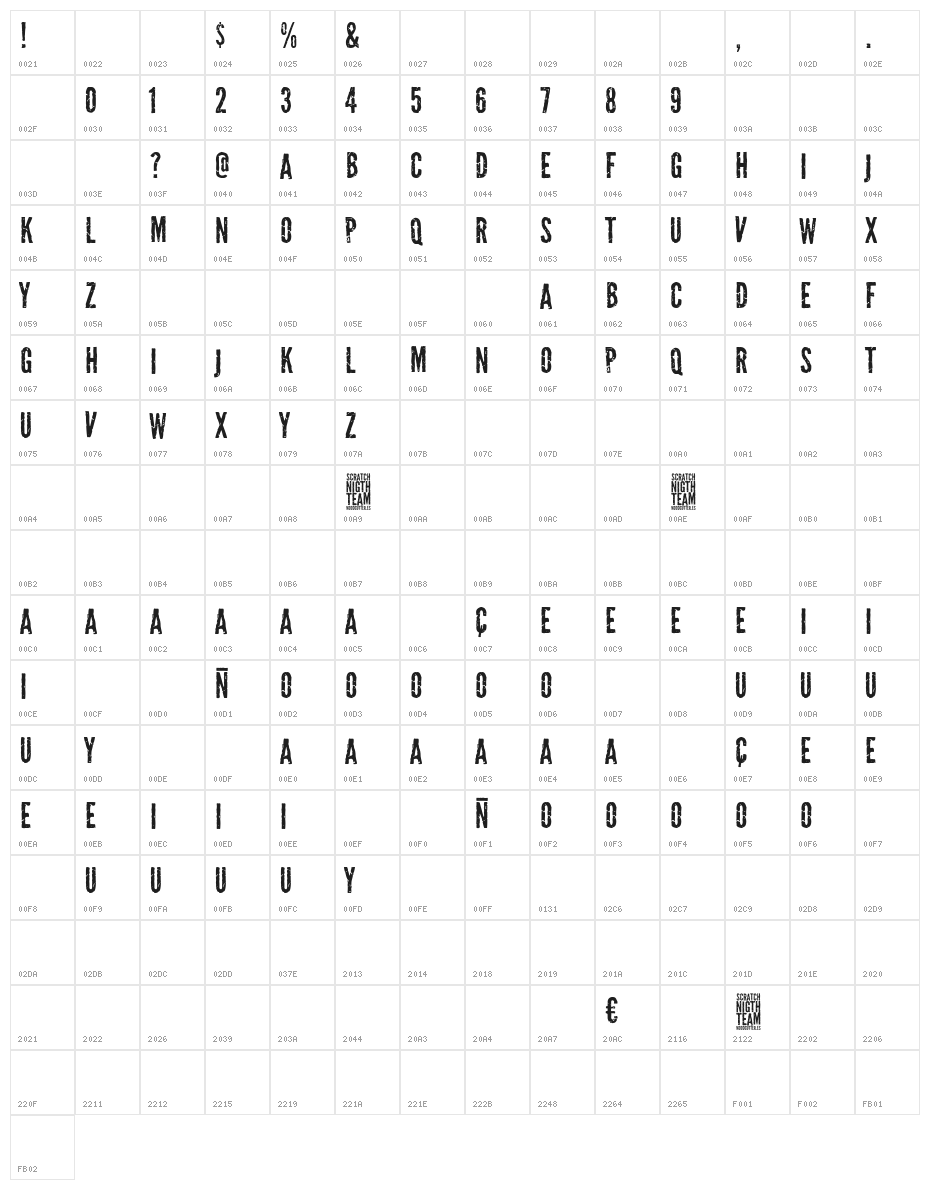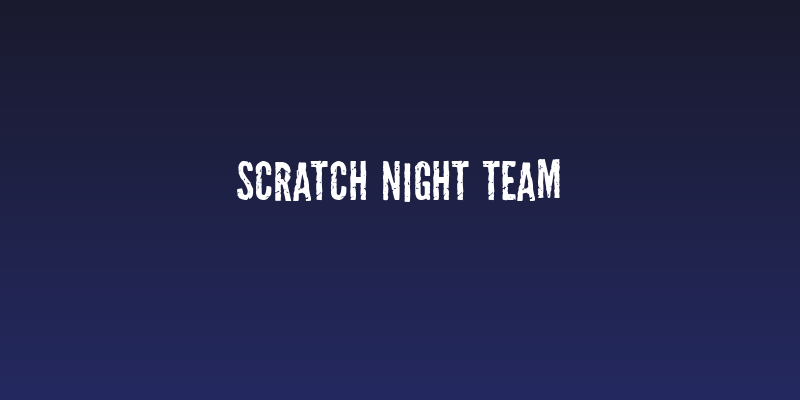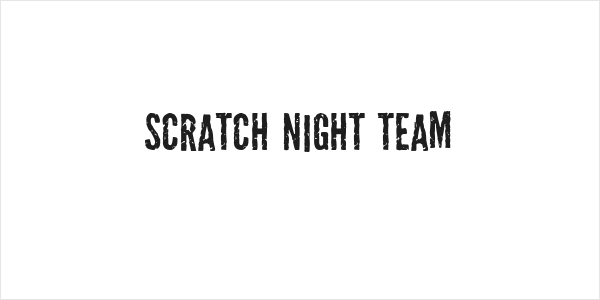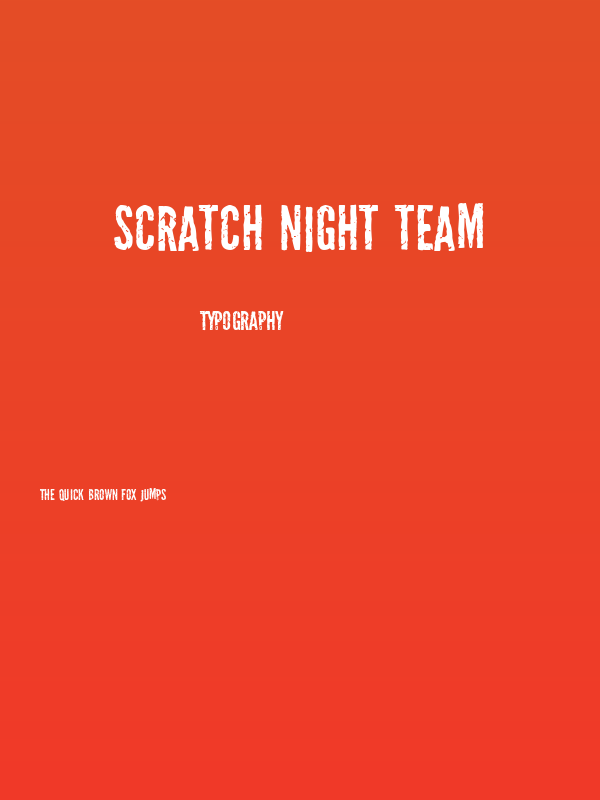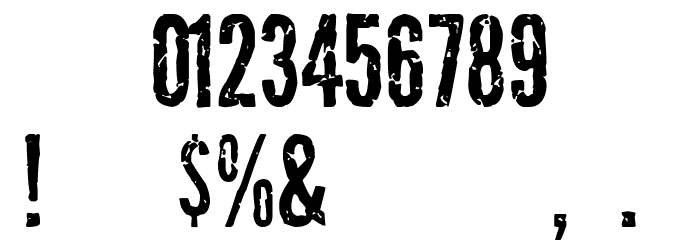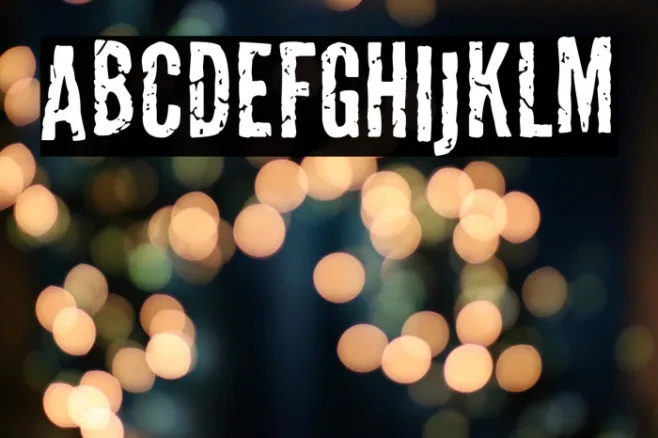
Scratch Night Team Font
Scratch Night Team Description
This font features a rugged, distressed appearance with a bold and impactful presence. Each character is uniquely textured, giving it a worn, vintage look that suggests a sense of history and character. The uppercase letters are bold and commanding, while the lowercase letters maintain the same distressed style, ensuring consistency across text. Numbers and special characters are also included, each with the same weathered effect. The overall design is reminiscent of old signage or typewriter text, making it ideal for projects that require a touch of nostalgia or a gritty, urban feel.
| Proposed Projects | Ideal for posters, album covers, vintage-themed designs, or any project needing a gritty, urban aesthetic. |